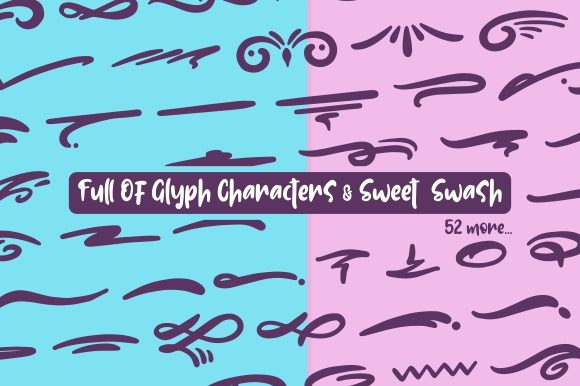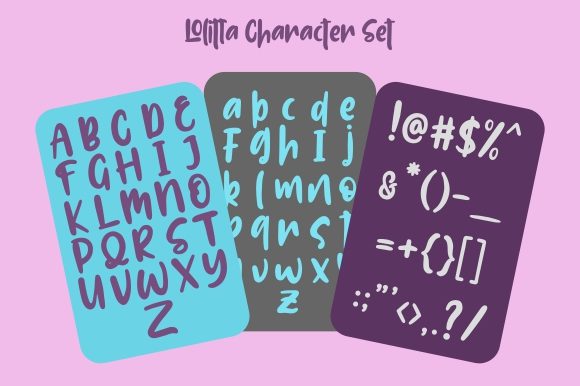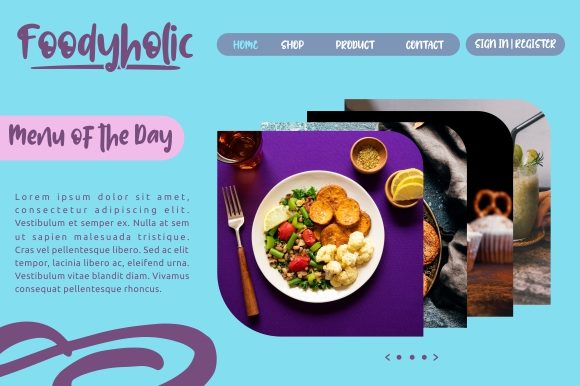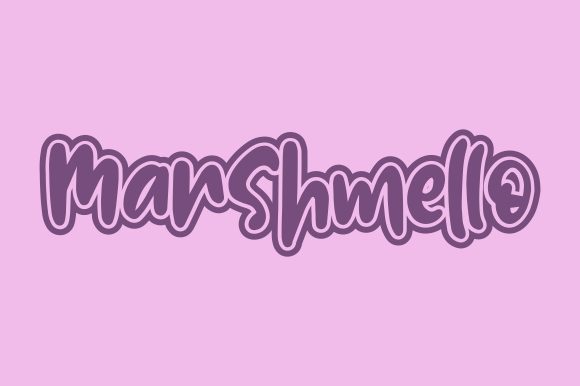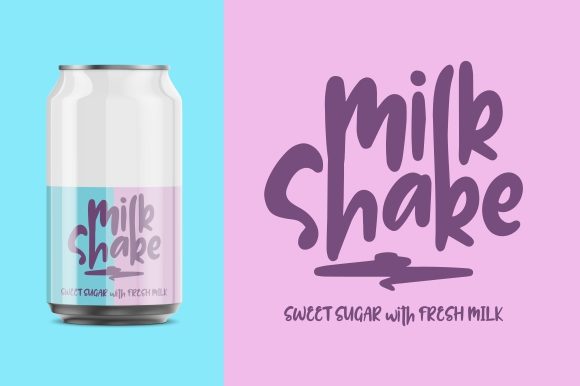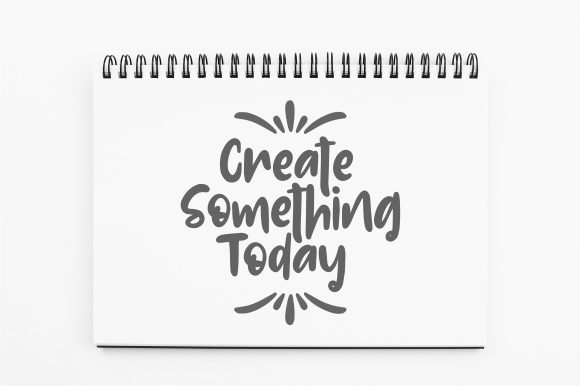
Introduction to Lolitta Font
Do you remember the excitement of rummaging through your childhood art supplies, searching for the perfect marker to bring your creative project to life? The feeling of scribbling with a bold, vibrant pen, watching your imagination unfold onto the page? That’s exactly the kind of joy and happiness the Lolitta Font aims to bring to your design world.
As a designer, you’re constantly on the lookout for the perfect design resource to elevate your work. And when it comes to display fonts, the Lolitta Font stands out for its high-quality, bold style that’s perfect for grabbing attention. With its transparent background and optimal character set, this font is ideal for everything from signage to prints, branding, and more.
Whether you’re working on a free download or a high-stakes commercial project, the Lolitta Font is a valuable addition to your design arsenal. So why settle for a generic font when you can add a dash of fun and personality to your work with the Lolitta Font?
Key Features of Lolitta Font
- High-quality design resource ideal for creative projects, such as digital art and graphic design.
- Features a transparent background, allowing for easy customization and versatility in your design.
- Designed with a unique and playful style, perfect for adding a touch of whimsy to your creative project.
- Font size: scalable, with a recommended minimum size of 24 points for optimal legibility.
Honest Review: Lolitta Font
I recently had the chance to work with the Lolitta Font, and I must say it’s been a pleasant experience. This free download has been a great addition to my design resource collection, and I’ve found it to be a valuable asset for my creative projects.
What works well for me is the Lolitta Font’s high quality and versatility. It’s a beautifully designed font that’s perfect for a variety of projects, from headings to body text. The transparent background option also makes it easy to integrate into my designs.
- ✨ Beautiful and elegant design
- ✨ High-quality and versatile
- ✨ Easy to integrate with transparent background
However, I do have a few limitations to note. The font is a bit limited in terms of character set, which can be a challenge for some projects. Additionally, the free version is not as extensive as some other fonts I’ve worked with.
- ⚠️ Limited character set
- ⚠️ Free version may not be as extensive as others
Overall, I’m quite impressed with the Lolitta Font. While it may have some limitations, its high quality and versatility make it a valuable addition to any design resource collection. If you’re looking for a beautiful and elegant font for your creative project, I’d definitely recommend giving it a try.
To get the most out of the Lolitta Font, use it on a transparent background to create a high-quality design. Experiment with different font sizes, colors, and combinations to add visual interest to your project.
The Lolitta Font is ideal for various creative projects, including:
- Typography
- Branding